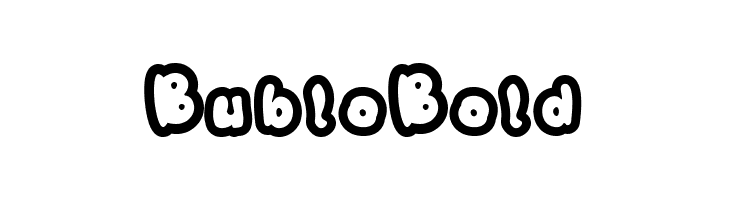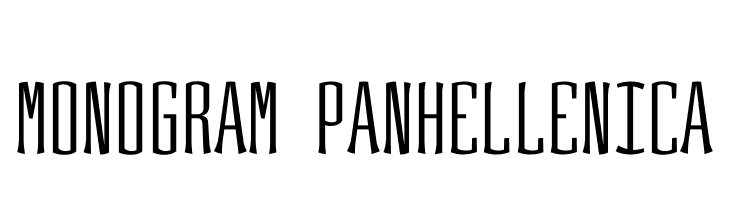
( Fonts by letterpunch )
A bold, geometric font with a modern yet vintage appeal, featuring tall, narrow characters.
( Fonts by Riyadh Rahman )
A bold, playful font with rounded, bubbly characters.
( imagex - www.imagex-fonts.com )
A bold, dripping font with a horror-inspired, decorative style.
( Fonts by Press Gang Studios - Andeh Pinkard - www.pressgang-studios.com )
A bold, angular font with a futuristic and edgy style.
A modern, tech-themed font with characters inside laptop outlines.
A playful, bold font with blocky, hand-drawn characters.
( Zetafonts - www.zetafonts.com )
A modern, extra light sans-serif font with clean lines and uniform stroke width.
( Fonts by Nabila )
Elegant handwritten script font.
( Fonts by Vladimir Nikolic )
A bold, geometric font with a unique outline style and futuristic design.
A bold, italicized font with a modern and dynamic style.